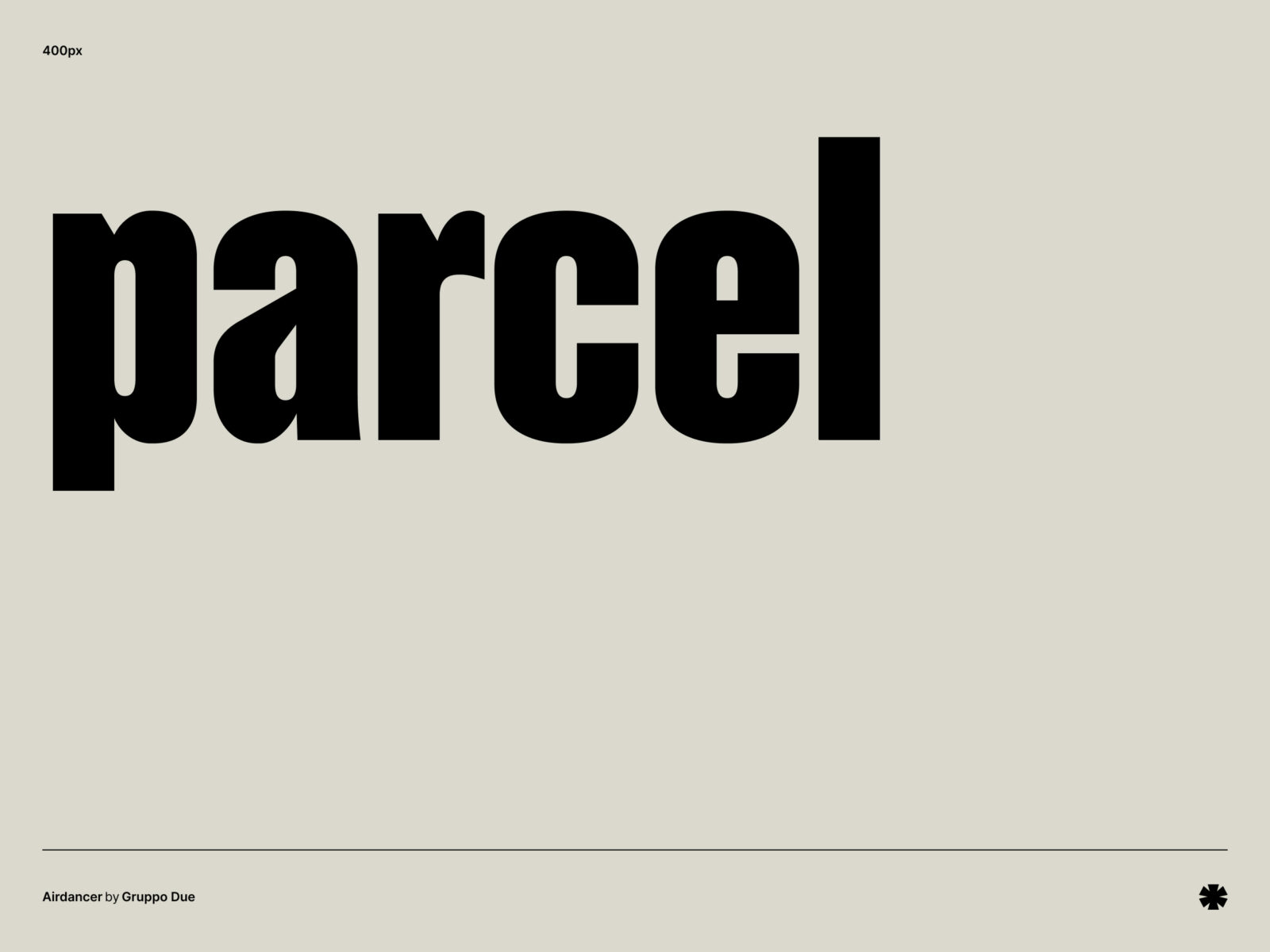
Airdancer is a bold display typeface originally created for a large installationin the Lichthof of Karlsruhe University of Arts and Design. It's made in three styles: round, semi-round, and edgy.